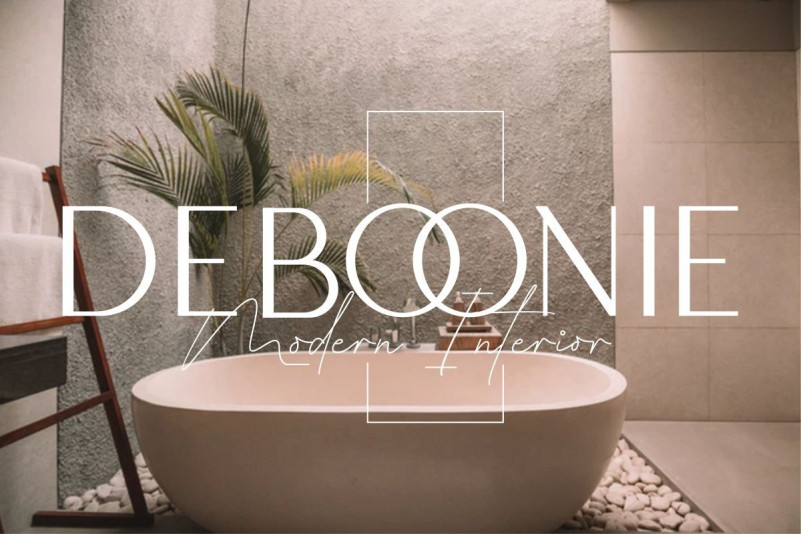
Boowie Sans Serif Font
Boowie Sans Serif Demo Font
Introducing Boowie Font. It is designed by typeline studio, this is a premium font, are sold on creativemarket, but it was great, it is free today for download. Boowie Sans Serif Font is a minimaist font sans serif regular and italic version.Boowie perfect use for logos, print, collage, body text, and more! It looks minimalist a really cool modern-meets-vintage look to any piece.